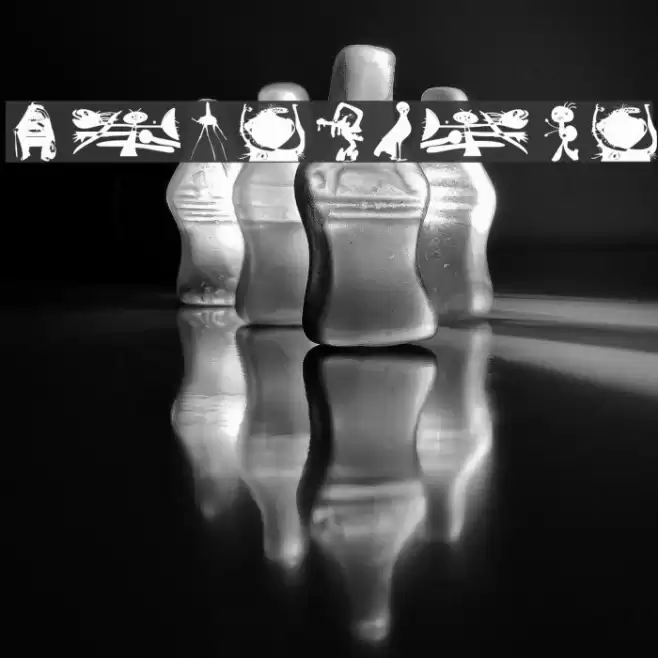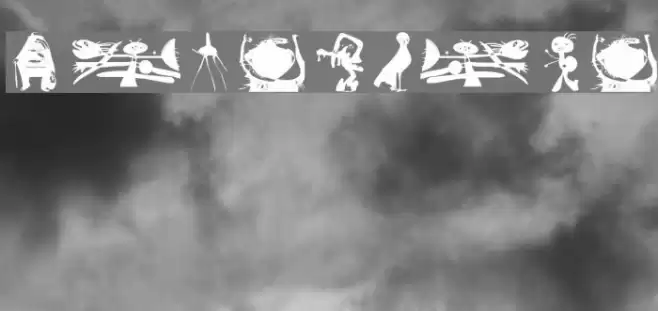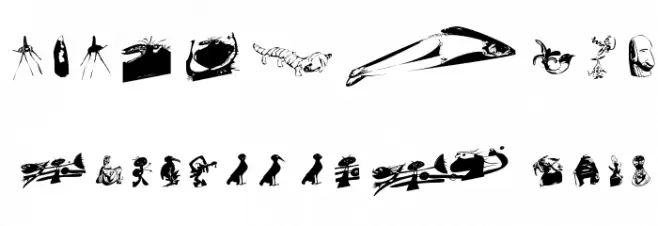
MArteFact Font
MArteFact Description
Highly decorative and illustrative set of glyphs, each character is represented by a unique, detailed drawing or pictogram rather than traditional letterforms, resulting in a playful and artistic appearance.
A pictorial, illustrative font with each character as a distinct artwork from Uncategorized fonts.
- Proposed Projects: Art projects, creative posters, album covers, experimental design, children's books, visual storytelling.
- Overall Style: Decorative, Artistic, Playful
- Use Case: Logos, Posters, Artistic Titles, Visual Art Pieces